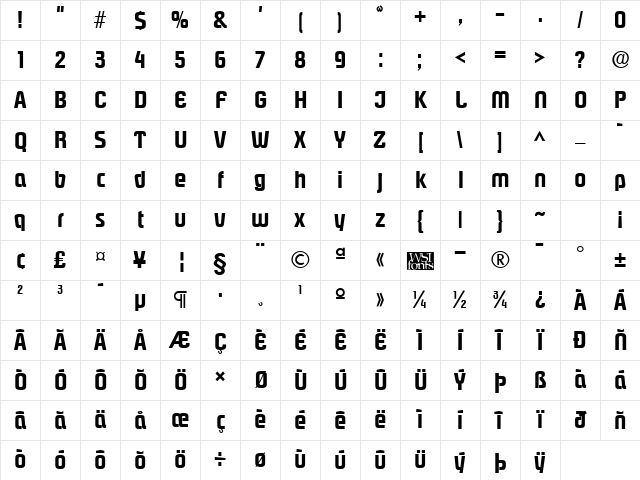
PloverExtrabold Regular
PloverExtrabold Family
Complete PloverExtrabold Regular glyph index. Displaying only characters natively supported by PloverExtrabold Regular font.
Design Context for PloverExtrabold
PloverExtrabold is a composed and adaptable typeface that performs quietly and consistently across a wide range of design contexts. Its bold stroke weight gives it real presence on the page.